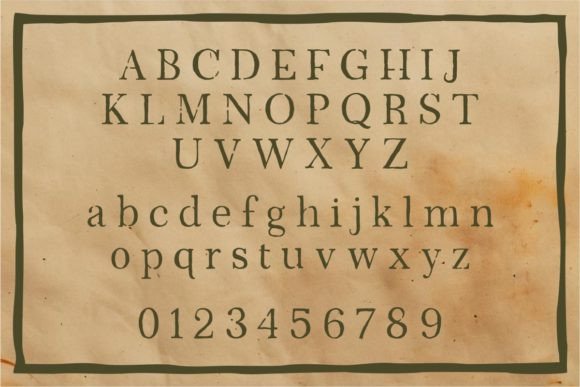
Old Retro Stamp is a handcrafted font that brings a touch of nostalgia to your projects. With a handwritten style, it adds a vintage charm to your text, making it perfect for creating a retro vibe. Whether you’re designing invitations, posters, or anything in between, this font adds a unique, old-school flair to your work. Embrace the simplicity and character of Old Retro Stamp for a stylish, retro-inspired touch.